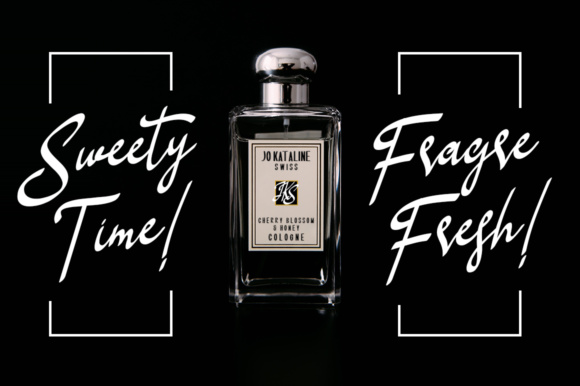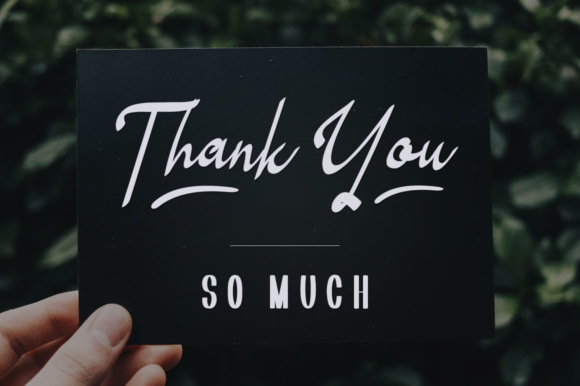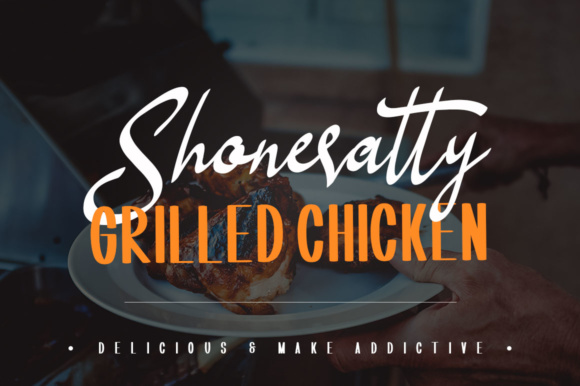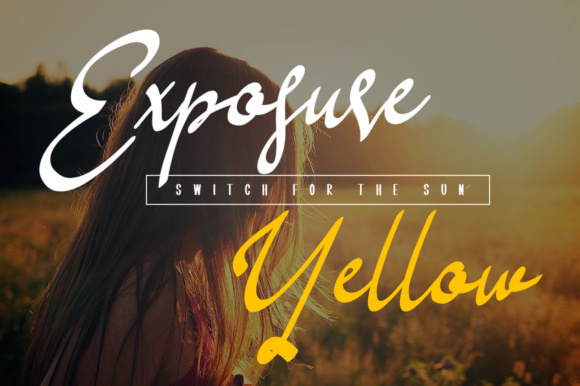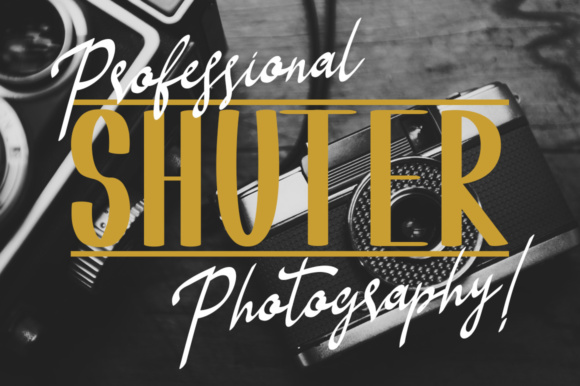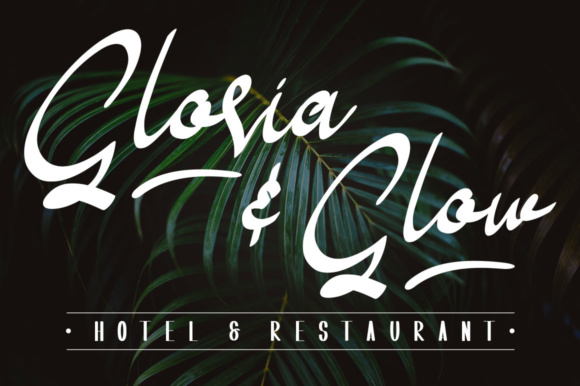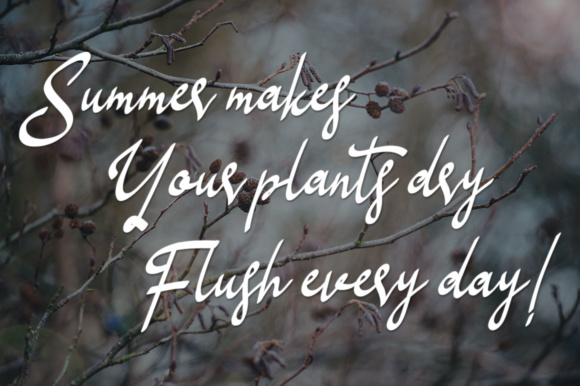
Shoneratty Chika Font
About Shoneratty Chika Font
The Shoneratty Chika is a classy and stylish blend of contrasting script & sans serif fonts. It is free-flowing, fashionable and feminine!